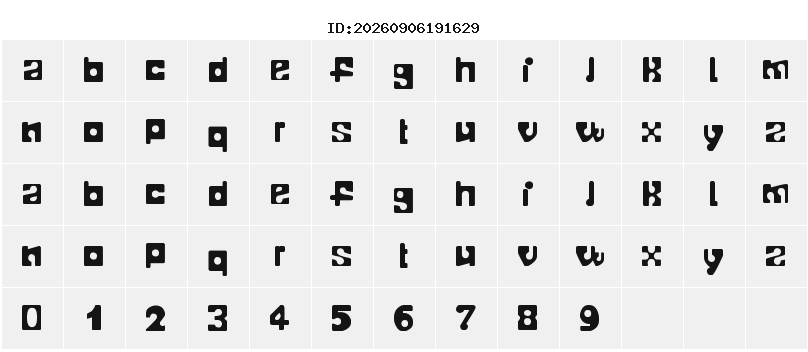
TELOPONE Preview
• Font Name: TELOPONE
• Full Font Name: TELOPONE
About TELOPONE.ttf
TELOPONE.ttf is a modern, elegant sans-serif font designed for ultimate readability and visual harmony. Perfect for branding, headlines, web design, and print materials.